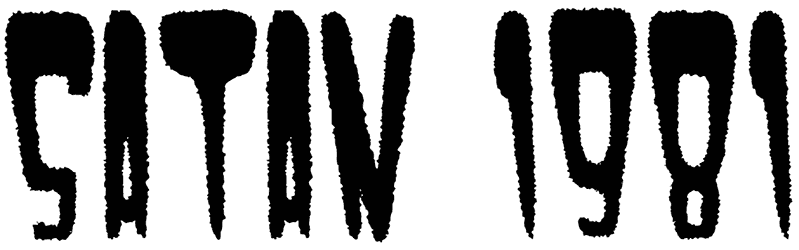
Satan 1981 Font
The Satan 1981 is a lesser-seen horror font that immediately grabs your attention. At the same time, this 80s font has a bit of a cartoon style and seems entertaining.
Thus, you may use the Satan 1981 font in various cases, such as animations, video games, and posters; however, the lowercase letters are not included. Besides, this font’s bold letters remind you of scary sci-fi movies, and its soft edges with a cubic form create a new experience.